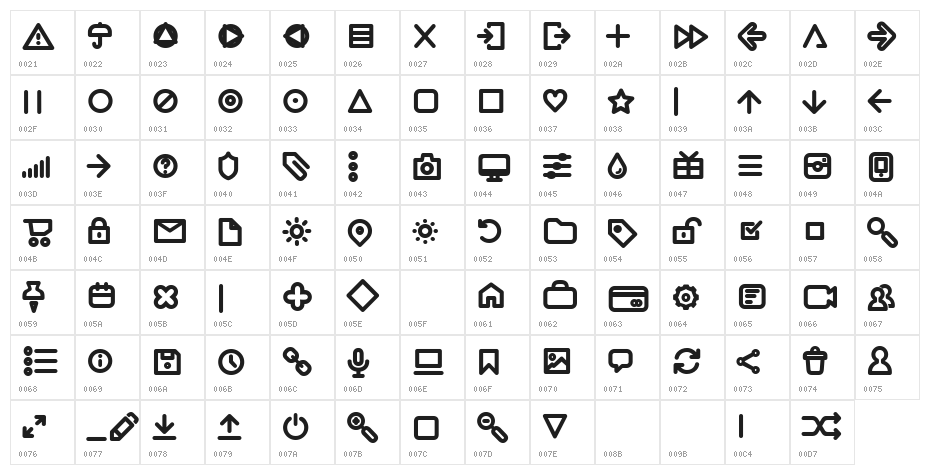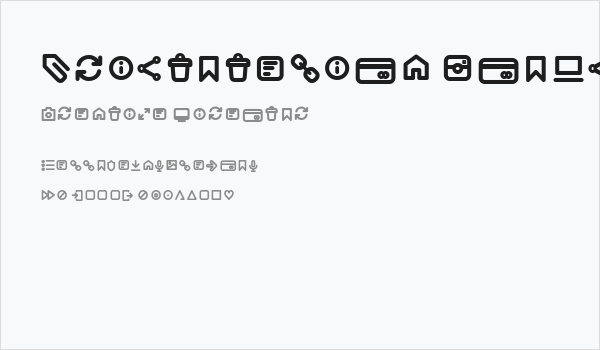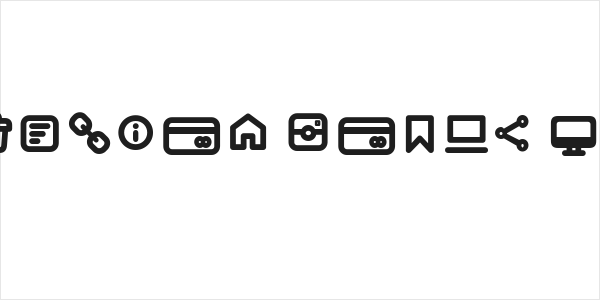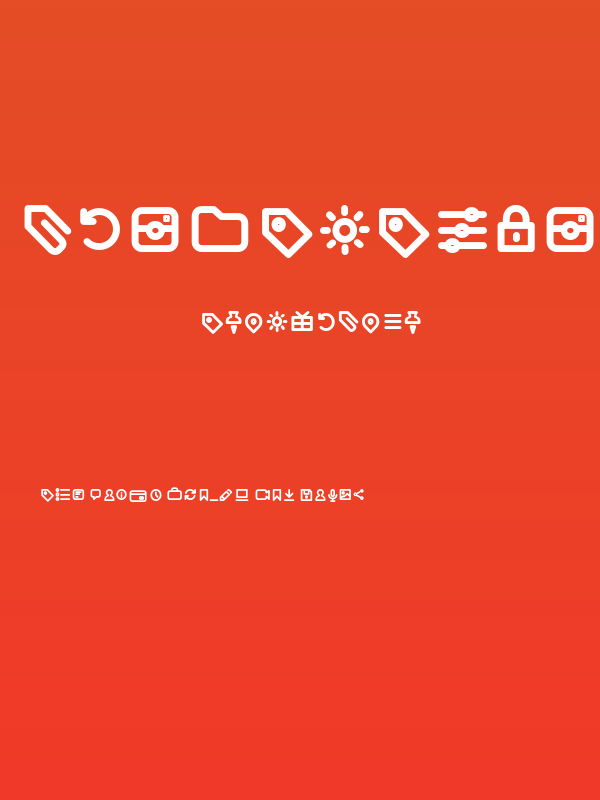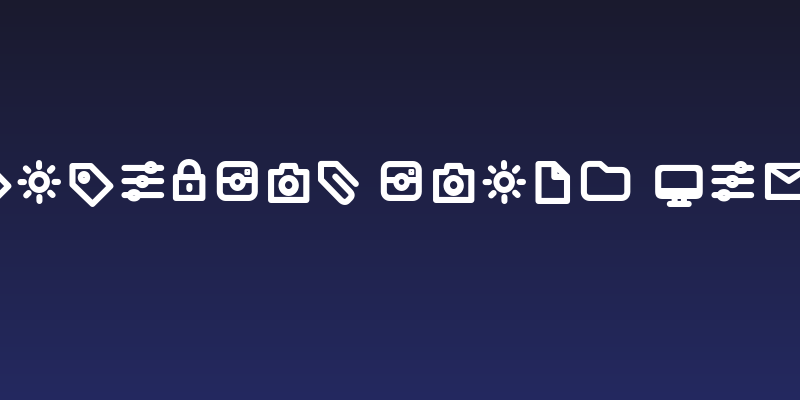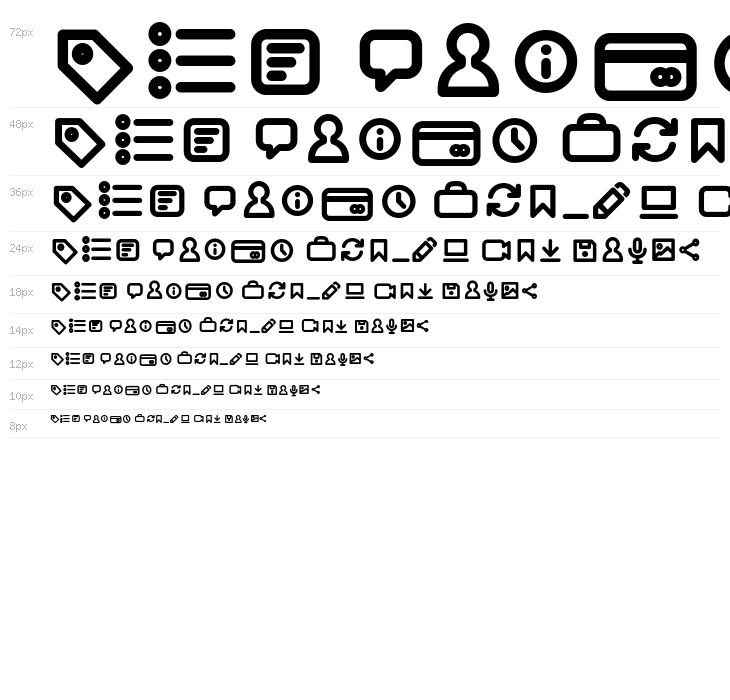
Aristotelica Icons DemiBold Font
Aristotelica Icons DemiBold Description
This collection features a diverse set of icons with a clean, modern aesthetic. Each icon is designed with a consistent line weight, providing a cohesive look across the set. The icons are simple yet effective, making them versatile for various applications. They include a range of symbols from basic shapes to more complex representations like cameras, computers, and social media icons. The style is minimalistic, ensuring clarity and readability at different sizes. The icons are suitable for both digital and print media, offering flexibility in design projects.